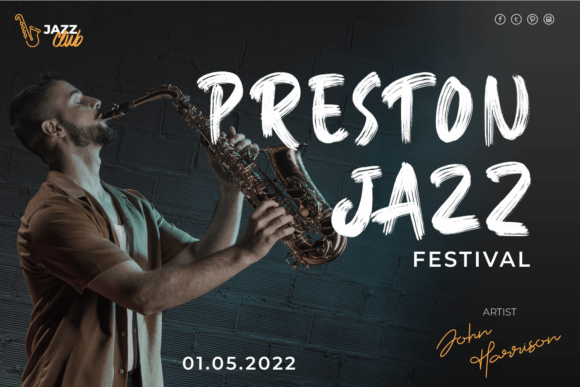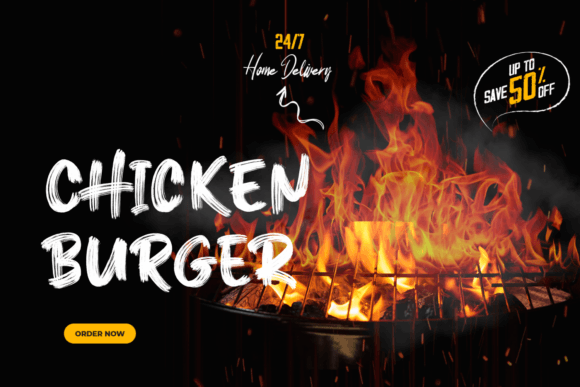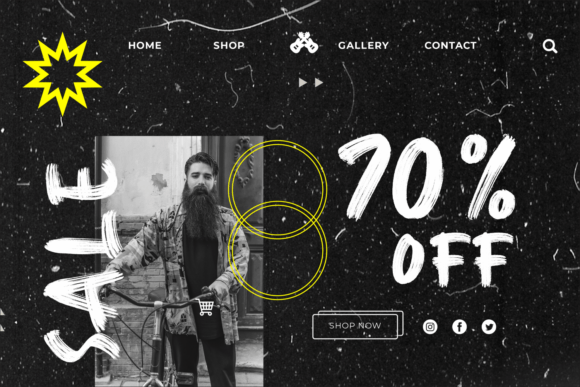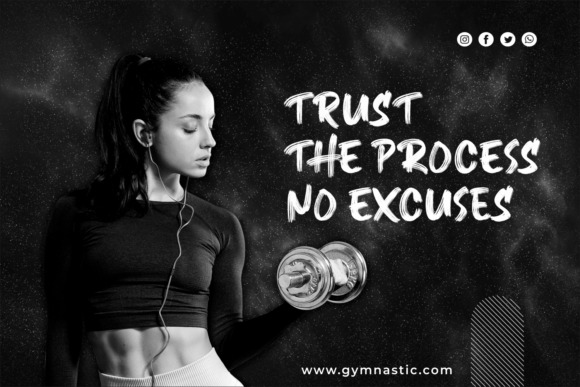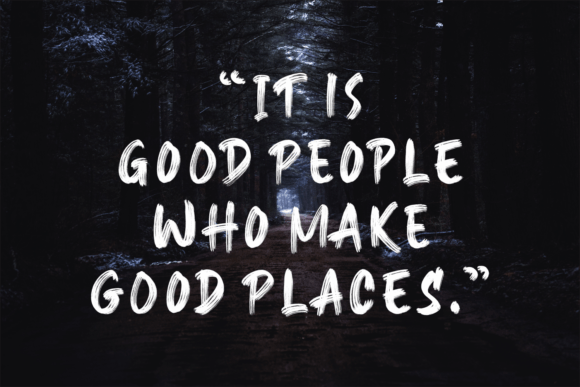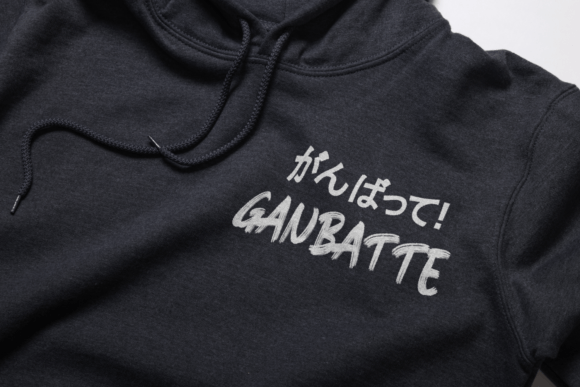
Inspire Font – Free Download
Introduction to Inspire Font
Inspire is bold, tightly spaced, and retains all of the brush imperfections.
It has a nice contrast with opaque parts and transparent ones It will give your work an authentic and realistic paintbrush look.
Key Features of Inspire Font